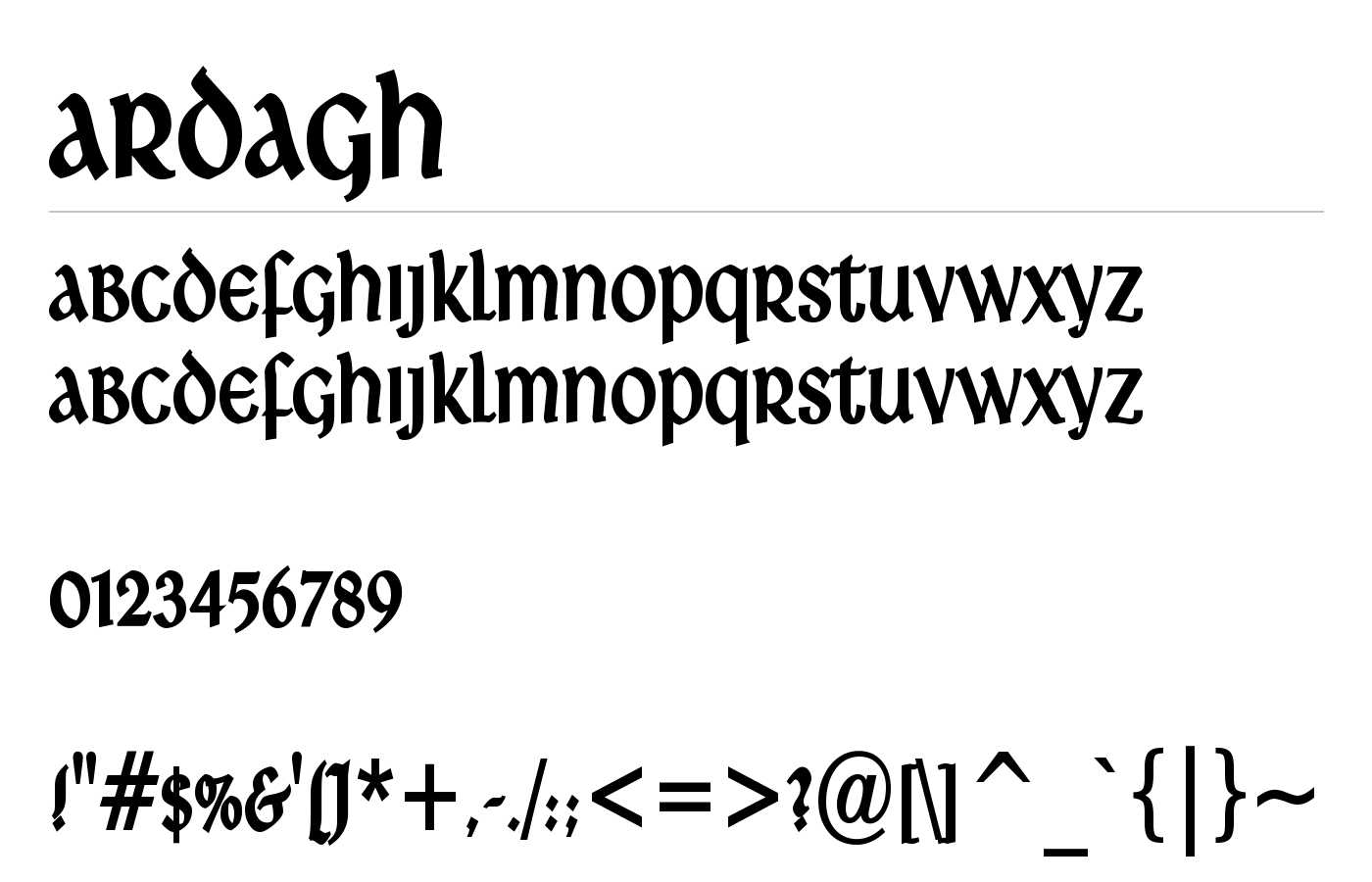
Ardagh is a distinctive serif font with a medieval, calligraphic feel, characterized by its sharp, bracketed serifs and strong stroke contrast. Its upright letterforms and unique shapes, like the angled tails and single-story "a" and "g," give it a historic, handcrafted charm perfect for vintage branding, book titles, and artistic projects. This font works well where a bold, timeless impression is needed, especially in headlines and display uses.
Ardagh Font
About Ardagh Font